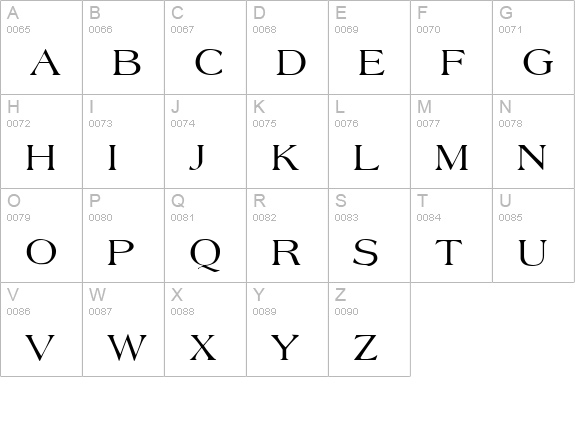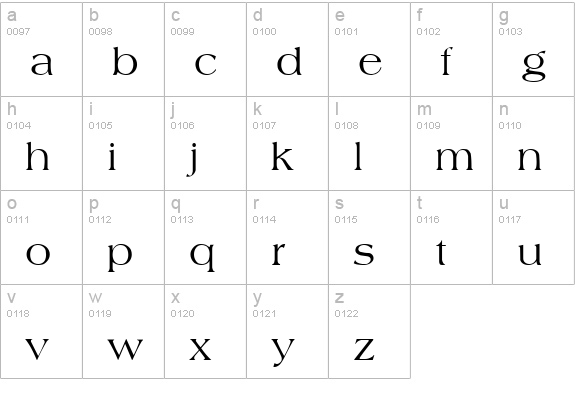
Amphion Regular Font Details
Amphion Regular is the standard, neutral variant in the Amphion typeface family \xE2\x80\x94 well suited to general body text, paragraphs, and standard typographic work.
Amphion Regular font is a modern and stylish typeface that exudes elegance and sophistication. With its clean lines and versatile design, this font is perfect for a wide range of projects, from branding to editorial design. The sleek and contemporary look of Amphion Regular makes it a versatile choice for both print and digital applications. What sets Amphion Regular apart is not just its sleek design, but also the fact that it is available for free. That's right, you can download this fabulous font for no cost at all at FontsMarket.com. Whether you're a designer looking to add a touch of sophistication to your projects or a business owner in need of a stylish font for your branding, Amphion Regular is the perfect choice. Download it today and elevate your design projects to the next level.